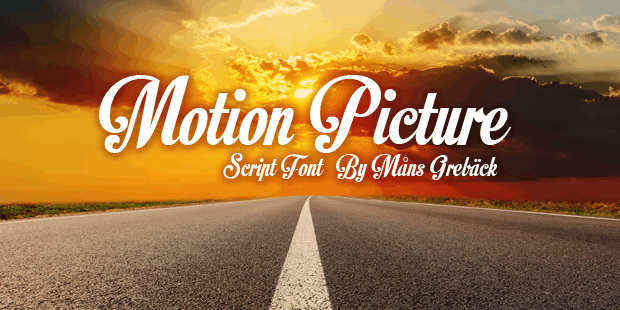
Free Motion Picture Font
Featuring the adorable free motion picture font. This free typeface file was found from the amazing source called Font Space. Easily amaze your audience with this fancy font and make your graphic designs pop up from the crowd.